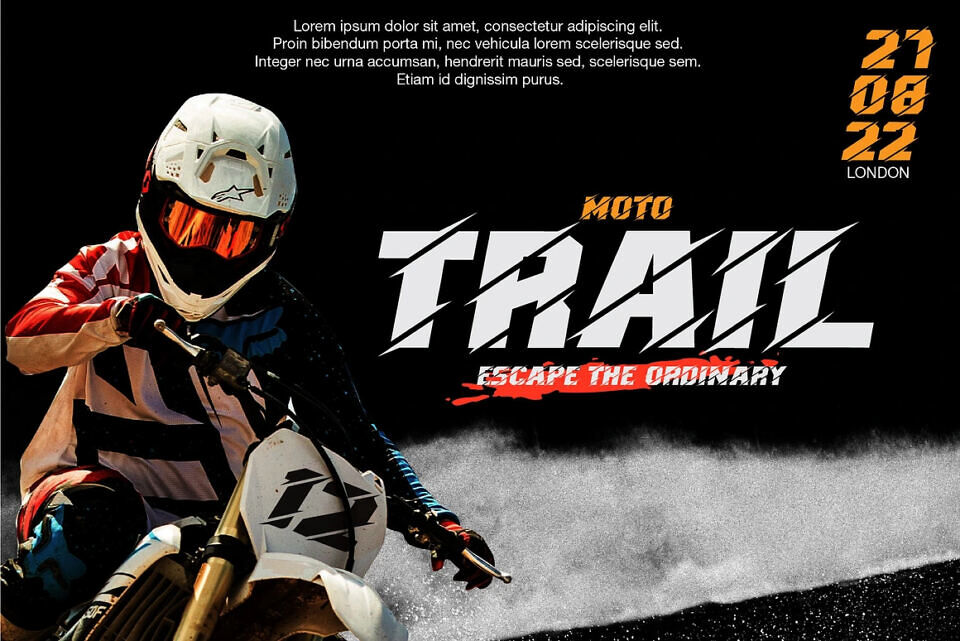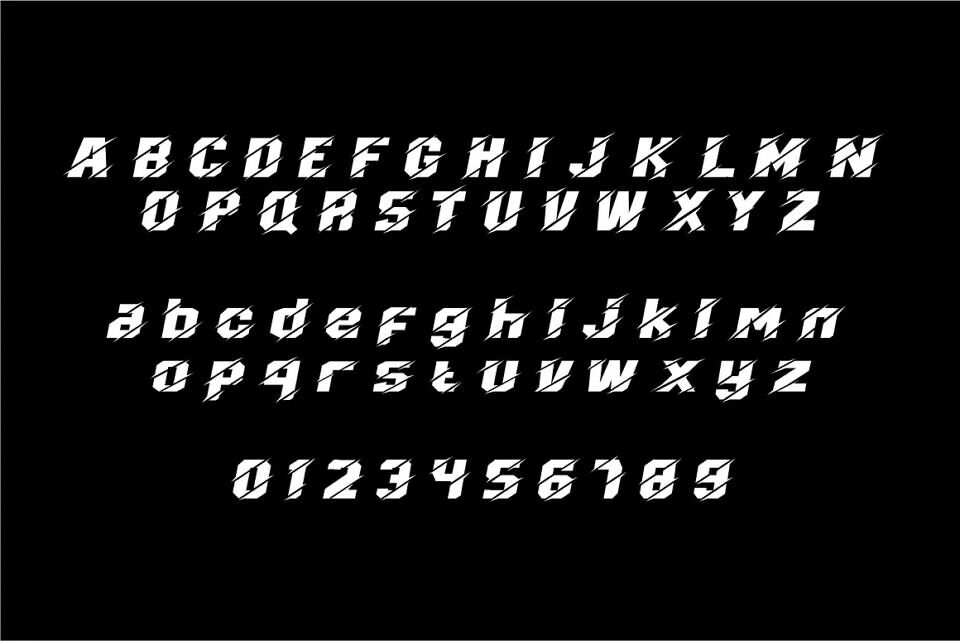
MX Font
MX font by WAP Studio is very suitable for automotive magazine covers, racing game covers, logos & branding, product design, labels and so on.
Designed by: WAPtype